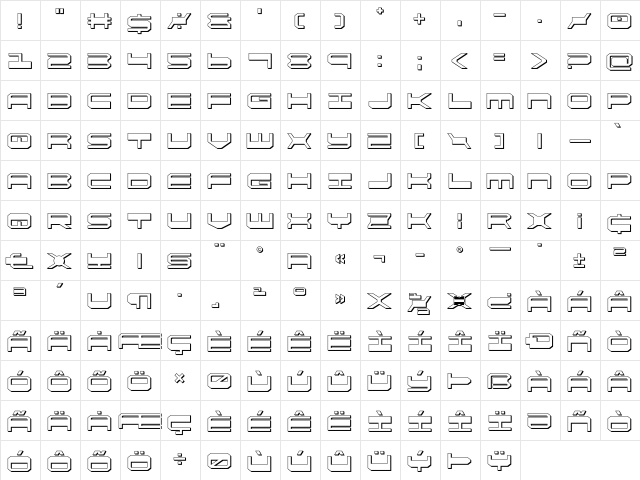
QuickGear 3D Regular Font Preview
QuickGear 3D Regular
QuickGear 3D Regular Font Details
Design Context for QuickGear 3D Typeface
QuickGear 3D is a composed and adaptable typeface that performs quietly and consistently across a wide range of design contexts.